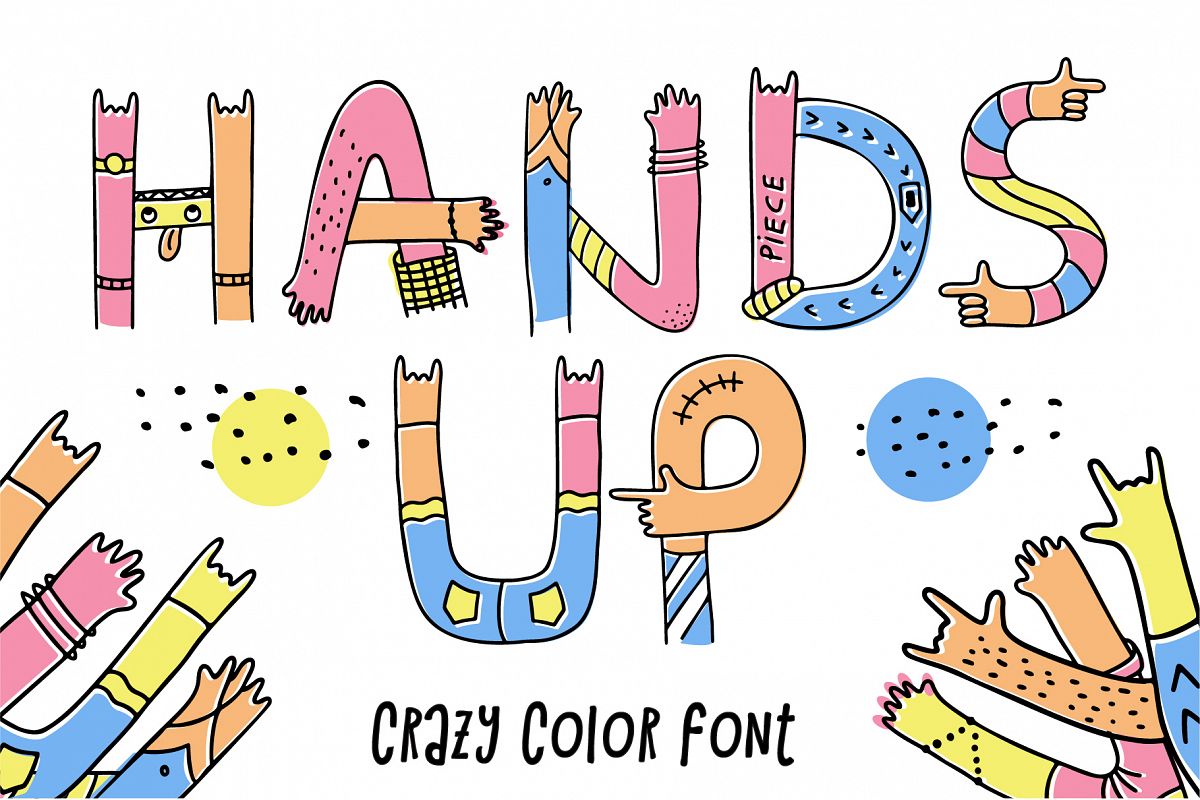
Hands up crazy color font
Handsup
Hands up crazy font. Creative letters done with arm gesture, palm, fingers, and thumb in a funny way. You can use this font for design logos, quotes prints on t-shirts and other.OpenType-SVG Font was designed with Fontself Maker in Illustrator CC. Contains only uppercase letters and digits.WARNING Color fonts are pretty new technology - they currently show up in Photoshop CC 2017+, Illustrator CC 2018 and some Mac apps. Learn more about color font support on third-party apps here: https://www.colorfonts.wtf/You will get: